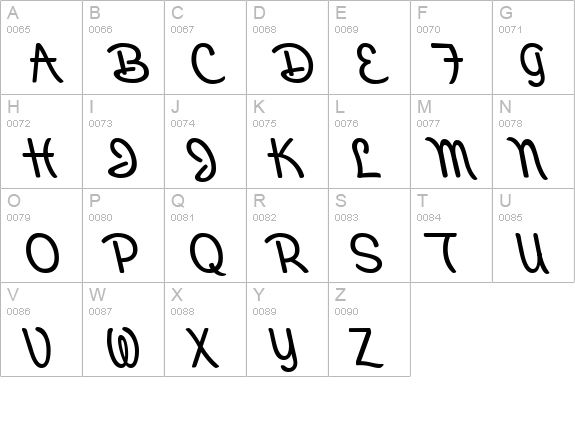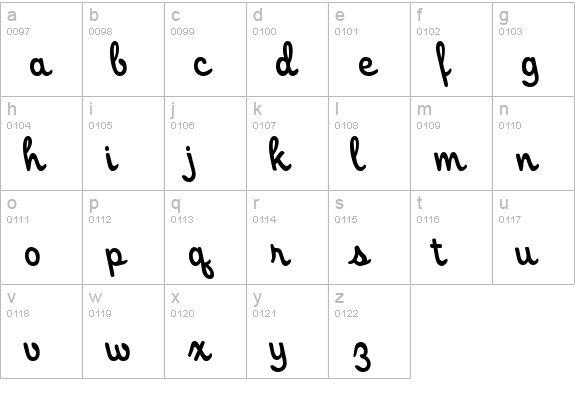
Honeymoon Font Details
Honeymoon font is a whimsical and elegant script typeface that exudes charm and sophistication. With its graceful curves and delicate flourishes, this font is perfect for adding a touch of romance to your projects. Whether you're designing wedding invitations, love letters, or any other romantic-themed content, Honeymoon font is sure to make a lasting impression. Best of all, Honeymoon font is available for free download at FontsMarket.com. Simply visit the website to access this stunning font and elevate your designs with its timeless beauty. Don't miss out on the opportunity to enhance your creative projects with the enchanting Honeymoon font today!